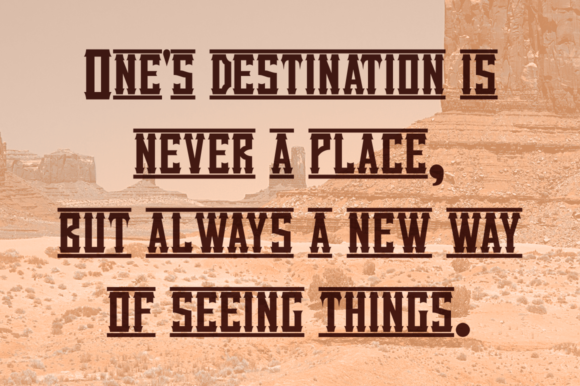
HomePersonal Use FreeVanilla Whale Personal Use Free Vanilla Whale FacebookXPinterestWhatsApp 1 of 2 About Vanilla Whale Font Get inspired by the Old West! Vanilla Whale is a thematic, display font that looks great in retro inspired designs. This free font is from Typodermic. DOWNLOAD NOW People also explored Beauty Florist Font Bank of England Agriculture Font Army Style Font Dealisya The Bubble Font Oranges Font Zroest Gilam 337 0 TagsVanilla Whale Font Previous articleUnispaceNext articleThe Fourth Avenue LEAVE A REPLY Cancel reply Comment: Please enter your comment! Name:* Please enter your name here Email:* You have entered an incorrect email address! Please enter your email address here Website: Save my name, email, and website in this browser for the next time I comment. Personal Use Free Bebas Neue Font Personal Use Free Read more about this font Open Store Personal Use Free Read more about this font Letter Hanger Personal Use Free Read more about this font Victorian Ornaments Personal Use Free Read more about this font BLOG To increase your work productivity, choose the most readable fonts. In today's fast-paced work environment, where digital communication and information consumption are integral to our daily routines, the choice of fonts can significantly impact... 5 Fonts That Will Dominate Design Trends in 2026 Free vs Paid Fonts: Why Investing in Premium Fonts Is Worth It How to Install and Use Fonts on Windows, macOS, and Web Projects